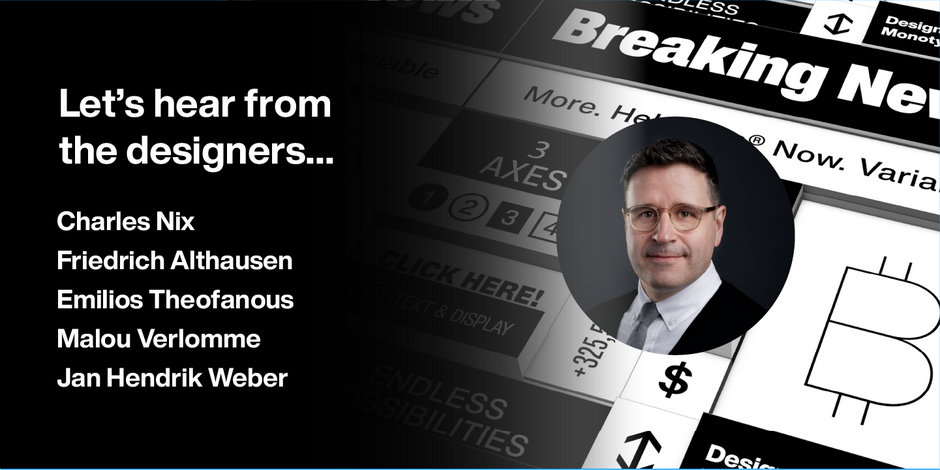
#1 Helvetica Now Variable by Monotype
Q1: Where did the idea for the typeface come from? Did you set out to address a specific use or suite of the application? Was this a design you’d had in mind for a while?
Ans: Helvetica has been with us for more than half a century – Neue Helvetica, for almost four decades – Helvetica Now, a couple of years. As soon as we finished Helvetica Now, we began thinking about the next iteration as Helvetica Now Variable.
Helvetica Now Variable merges three typographic concepts. The first is Miedinger and Hoffman’s: to create the most neutral, clear, and simple typeface ever. The second is Helvetica Now’s reintroduction of optical sizes – Display, Text, and Micro. The third is the most revolutionary: to create a seamless spectrum of weights, widths, and optical sizes – built into a single font file. The arrival of Helvetica Now Variable marks the “arrival” of Variable fonts. It’s the most famous typeface of all time in the format that will define the future of typography.
Q2: What is the one or two most important things graphic communicators should know about the typeface, or how will the family of fonts help them create better design?
Ans: The prospect of working with optical sizes can be daunting, but both CSS and Adobe InDesign can automatically implement optical sizes when they’re present in a Variable font, like Helvetica Now Variable.
And all of that charismatic, bouncing and undulating animated type you been seeing on Instagram and in the brand landscape of late –it’s all made with minimal programming and Variable fonts. It’s time to get busy and begin writing the future of typographic design!